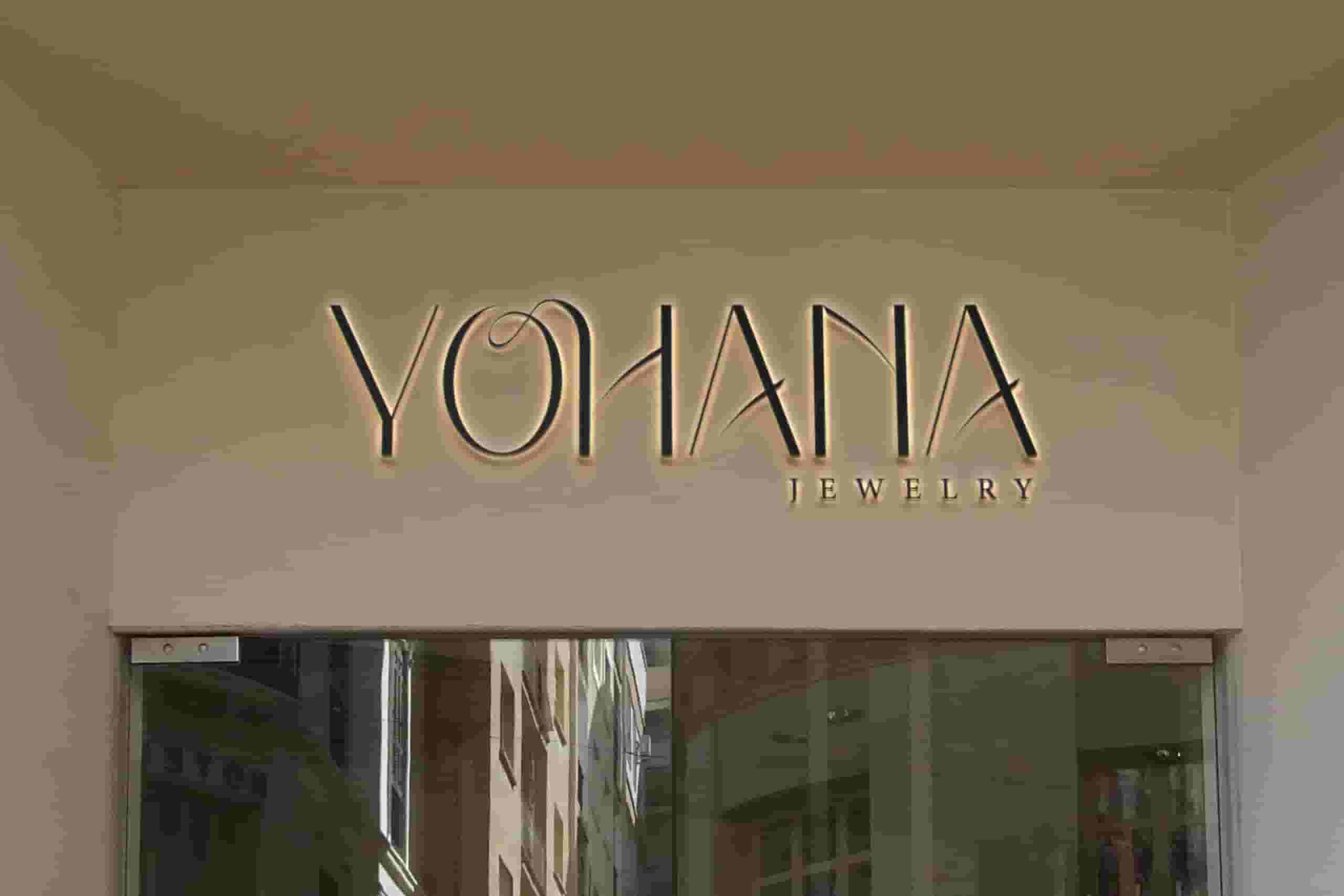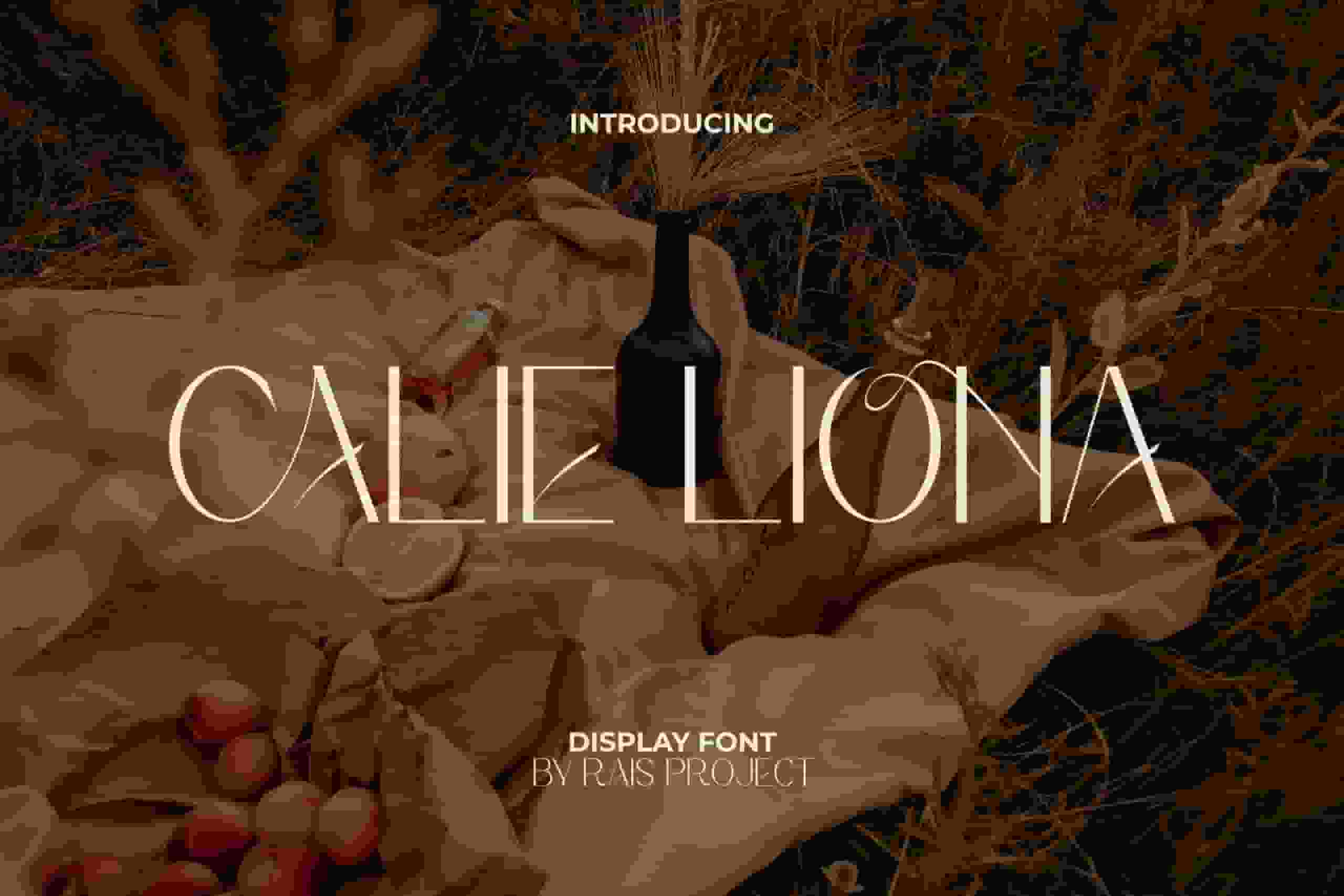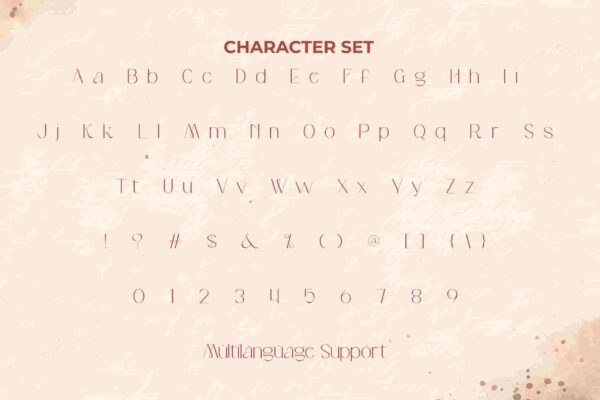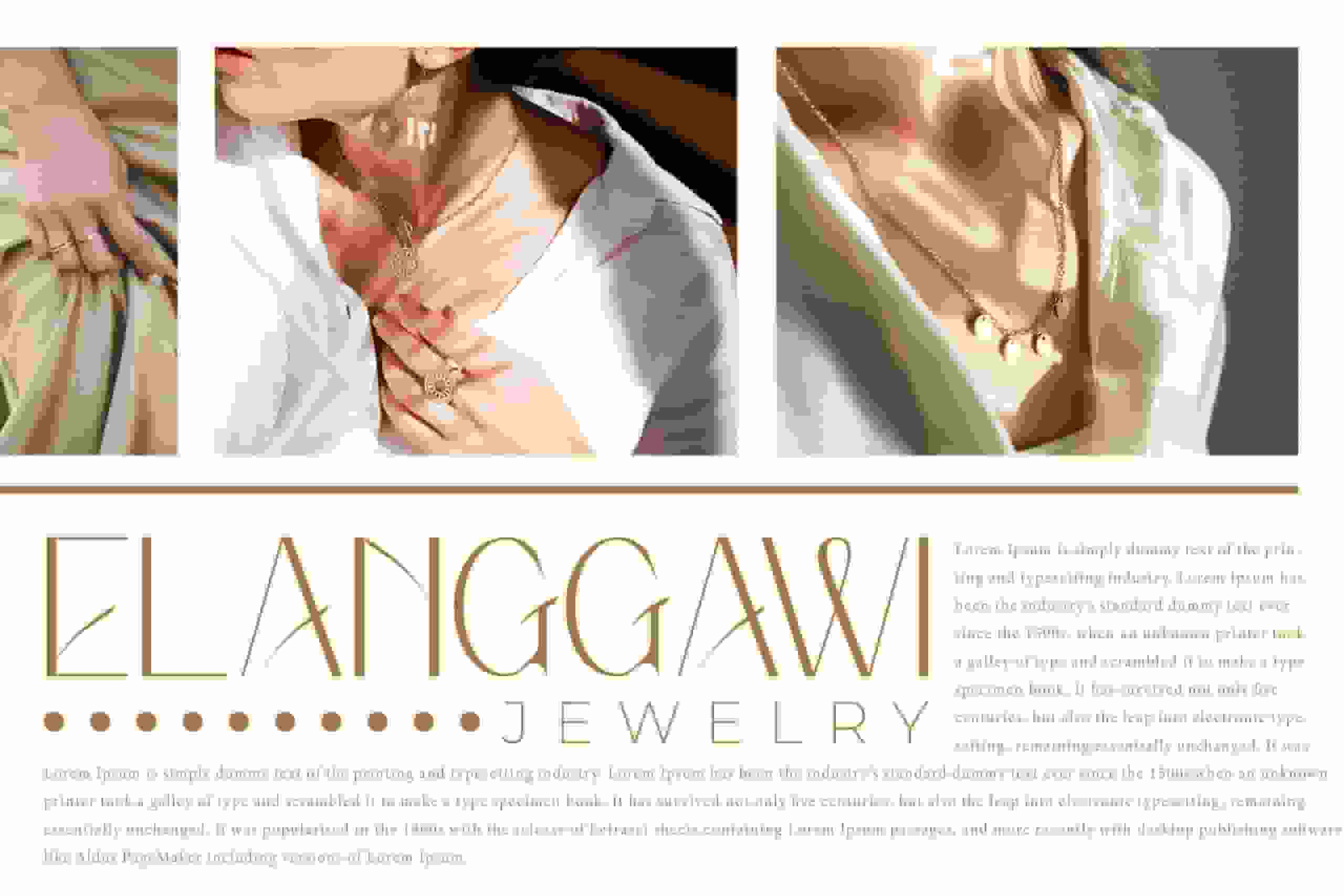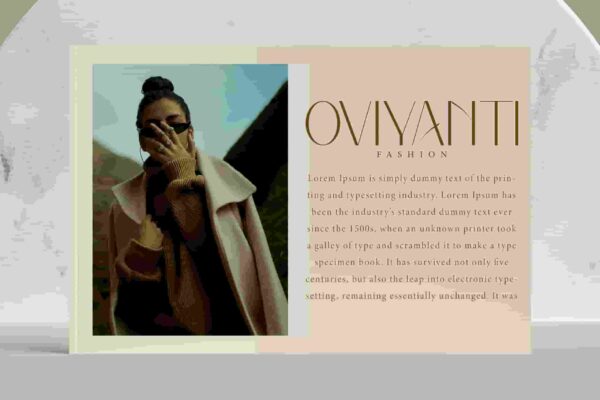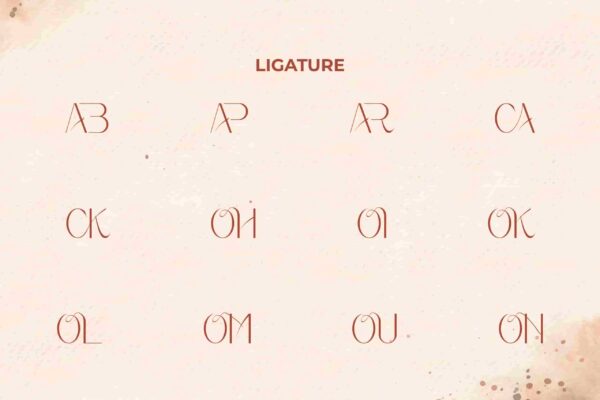
Calie Liona Display Font
Calie Liona Font is a stunning and minimalist display font that will make your designs looks awesome!
Calie Liona Font is a modern and clean sans serif display font, by RaisProject. This display font has thin lines so it leaves a luxurious impression that is timeless. It will be good for any designs, such as brand image, cover, custom design, invitation, label, poster, product packaging, quotes, signage, stationery, web, and more! You can see the demo font below, input any word you want so you can see what it looks like:
Calie Liona Font includes a full set of Uppercase and Lowercase Letters, Numerals, Punctuation, Symbol, and Ligature characters. This flawless font will be suitable for various industries, such as accessories and jewelry, advertisement, event or wedding organizer, fashion, florist, homeware, perfume, photography, printing, publishing, real estate, etc. What you get: